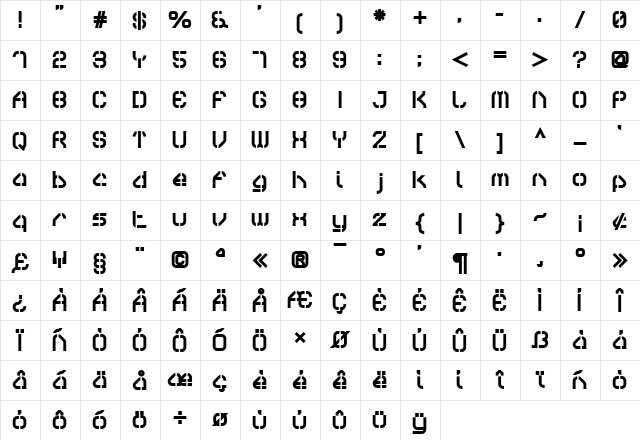
Sylar Stencil Regular
| Foundry | Jonathan Hill |
| Designer | Jonathan Hill |
Design Context for Sylar Stencil Typeface
Sylar Stencil borrows the utilitarian aesthetic of stencil lettering, with its characteristic cutaways and no-frills construction lending an industrial edge.
Ideal for industrial branding, streetwear, military-adjacent aesthetics, and urban signage projects.
Pro Tip: Pair Sylar Stencil with raw, utilitarian design elements — exposed concrete textures, flat colour, and minimal ornamentation suit it well.